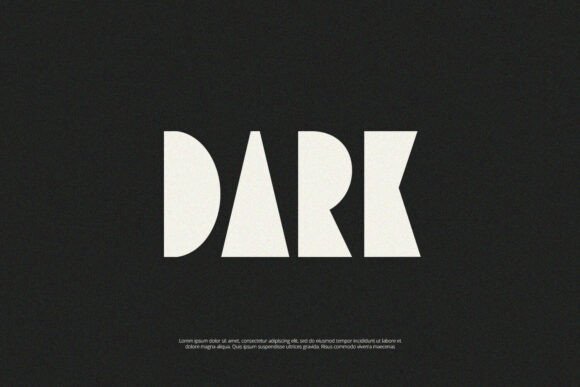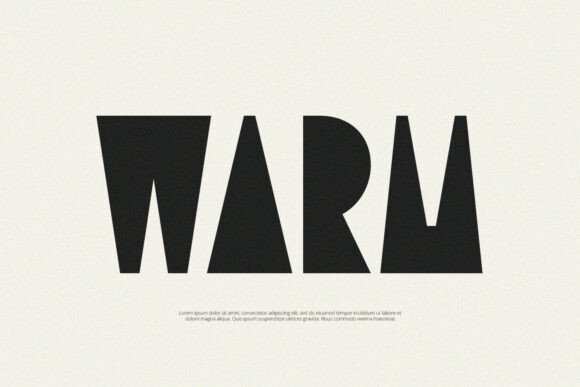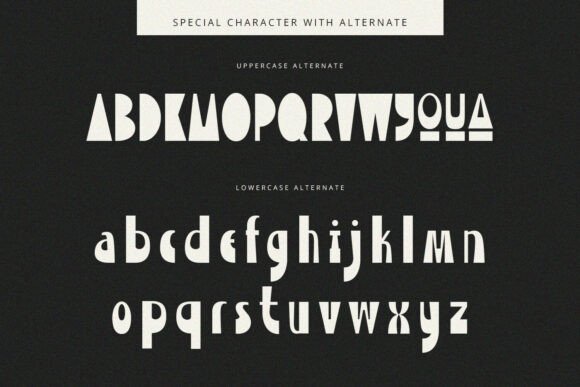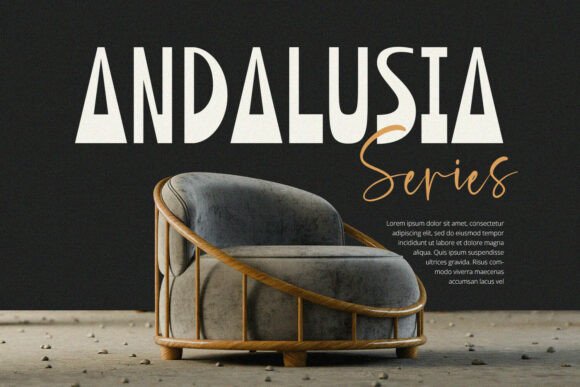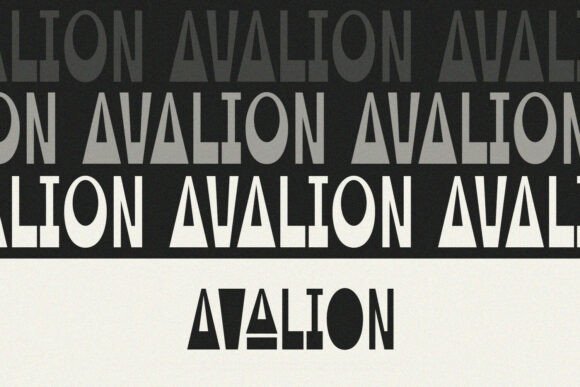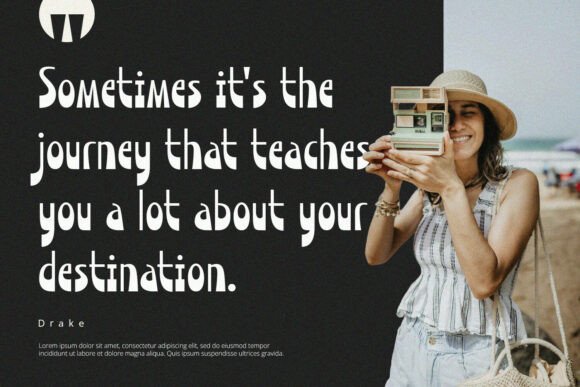
Introduction to Shardmark Font
Shardmark is display font with modern feels.
It will be perfectly used for Branding, Logo Design, Lettering, Logotype, Clothing, Poster, magazine, packaging, posters, shopping bags, t-shirts, book covers, photography, special events and other design project Product Content : – Shardmark (otf-ttf-woff) Features : – Uppercase & Lowercase – Numerals – Punctuations (OpenType Standard) – Accents (Multilingual Characters) – Ligatures and Alternative Style Stylistic Set – Works on PC & Mac – Simple installations I hope you enjoy this font.
Key Features of Shardmark Font